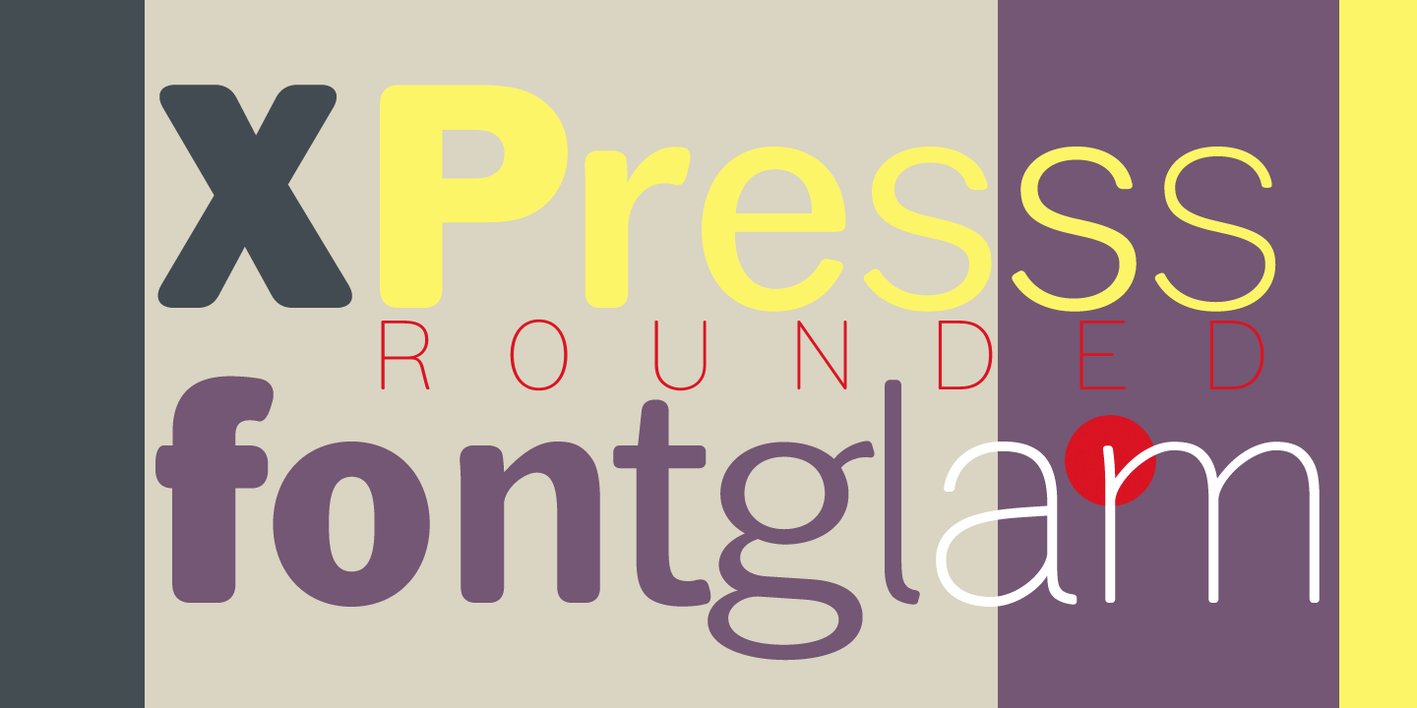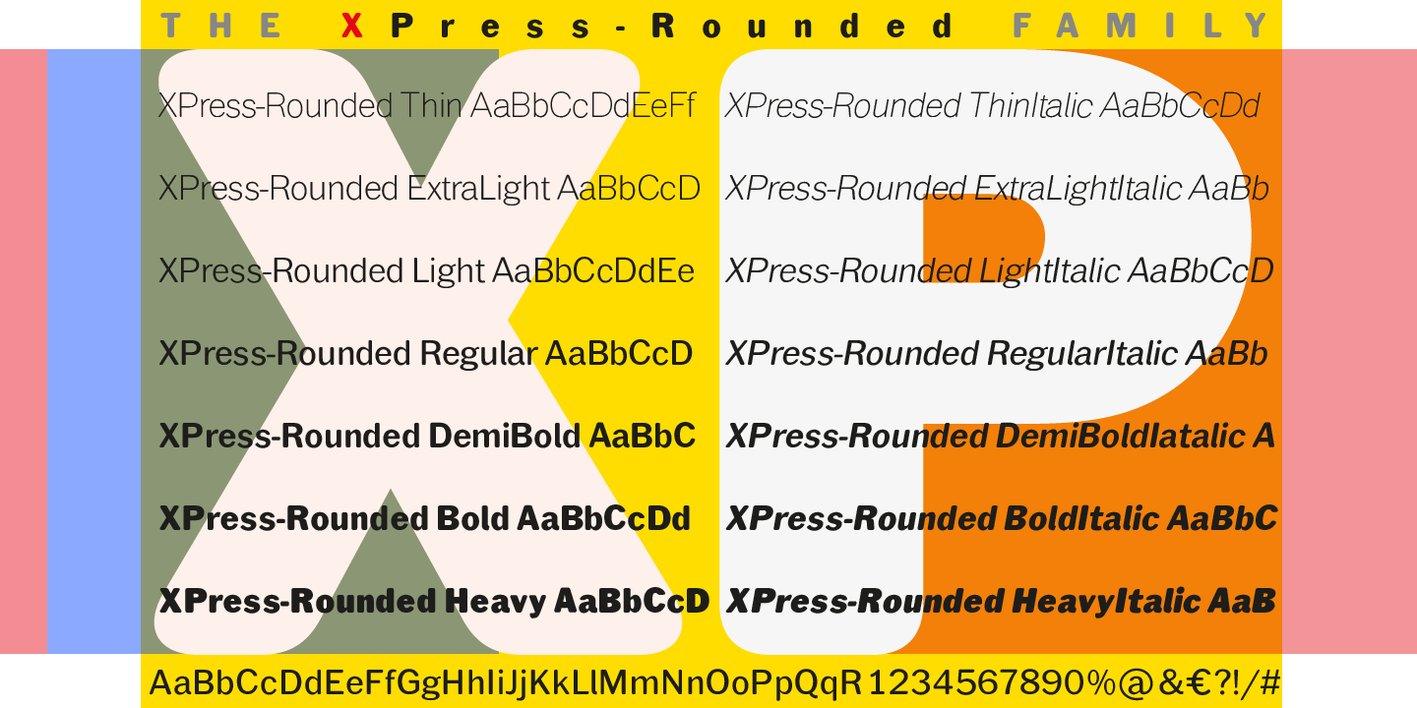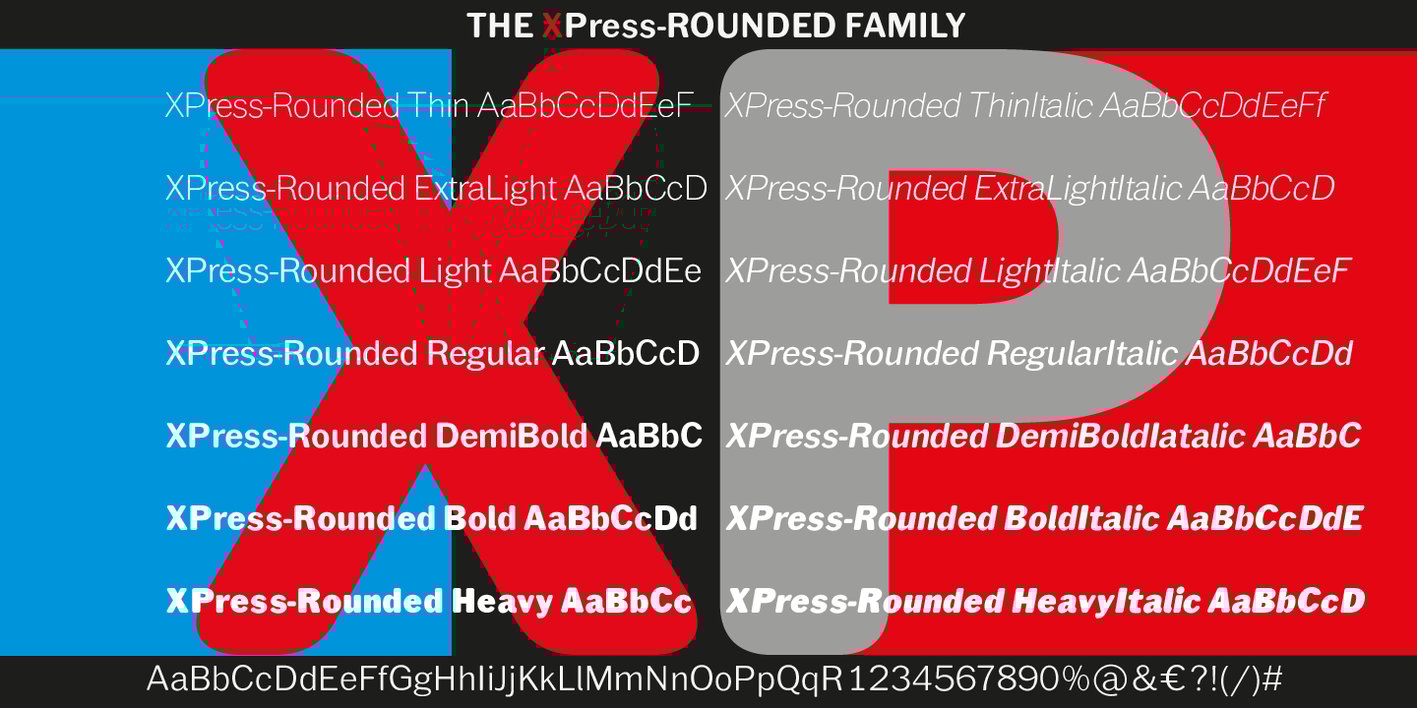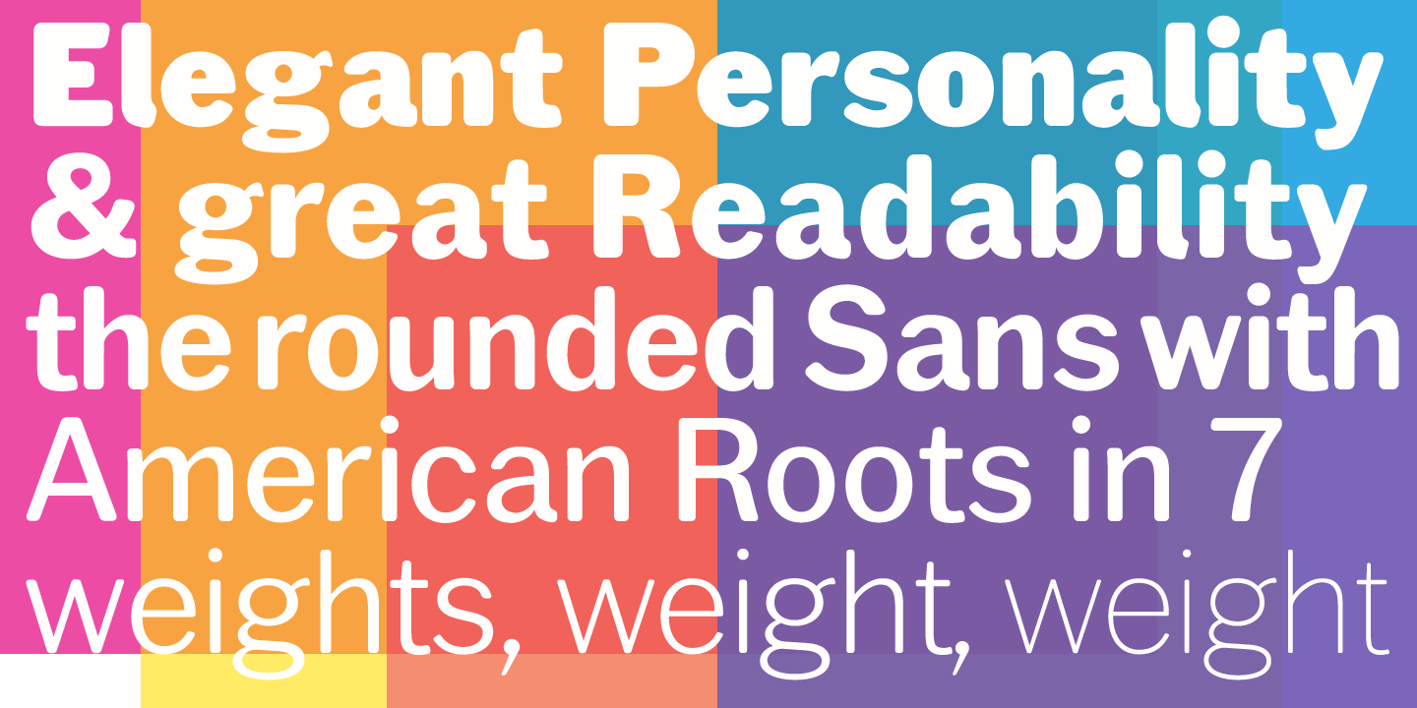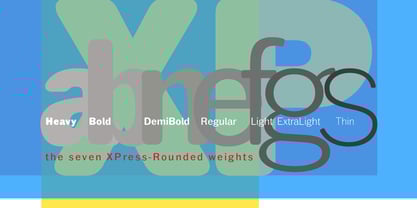
XPress Rounded Font
XPress Rounded Font is perfect for fast delivery services, express shipping branding, urgent news headlines, breaking news graphics, quick service restaurants, rapid transit systems, speed-focused advertising, dynamic sports graphics, high-energy marketing campaigns, time-sensitive communications, express courier companies, and energetic projects that require fast, friendly typography with rounded accessibility and urgent appeal.
What makes XPress Rounded Font so exciting is its dynamic speed combined with approachable friendliness that embodies the perfect balance of urgency and accessibility in fast-paced communication environments. This typeface features rounded letterforms with energetic characteristics and smooth curves that create immediate attention while maintaining the welcoming appeal that makes urgent messages feel approachable rather than aggressive. The font's express character and rounded appeal make it perfect for speed-focused businesses and urgent communication needs that want to convey efficiency without sacrificing customer friendliness and brand warmth.
XPress Rounded Font typically comes in multiple weights and styles including Light, Regular, Medium, Bold, and Black variations, often with condensed widths. Many versions also include speed symbols, delivery icons, and express-themed decorative elements that enhance the font's urgency functionality and provide designers with comprehensive tools for creating fast-paced, customer-friendly typography compositions that balance speed with accessibility.
Whether you're designing express delivery materials, fast-service branding, or urgent communication campaigns, XPress Rounded Font delivers exceptional speed authenticity and friendly accessibility that connects with customers who need fast service but value approachable, welcoming brand communication. Its rounded, energetic appearance works exceptionally well in both urgent headlines and customer-facing applications where speed must be balanced with brand friendliness.
The dynamically crafted letterforms of XPress Rounded Font showcase the ultimate expression of express typography and customer-friendly design principles. Each character has been engineered to convey urgency and speed while maintaining the rounded friendliness that ensures customer comfort, making it particularly valuable for express communications where typography must deliver both immediate impact and welcoming accessibility for time-sensitive customer interactions.